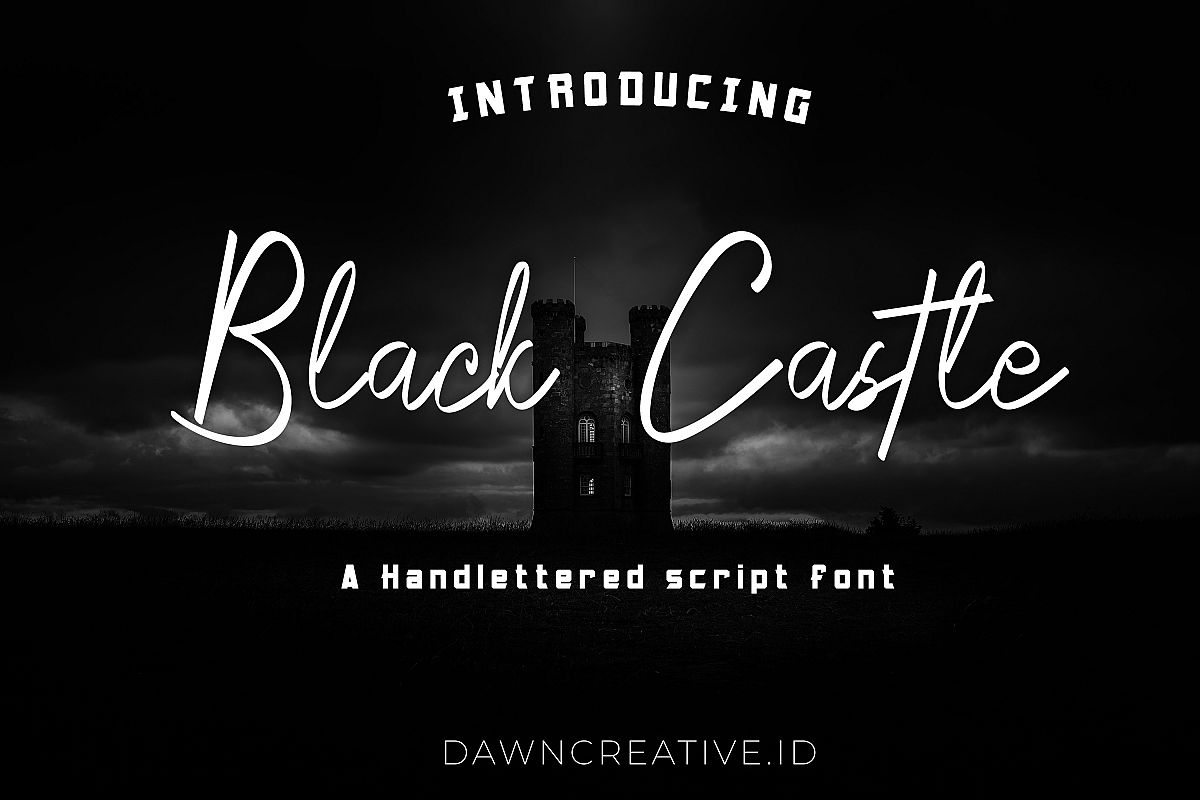
Black Castle
Black Castle is a signature font that unique and elegant script. It will be matched for your design which has dark themes like Halloween design, Magic, and many more.